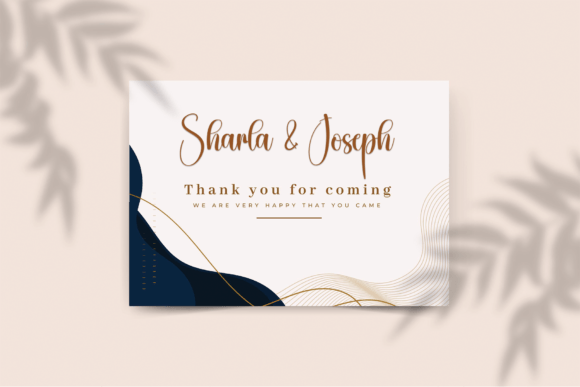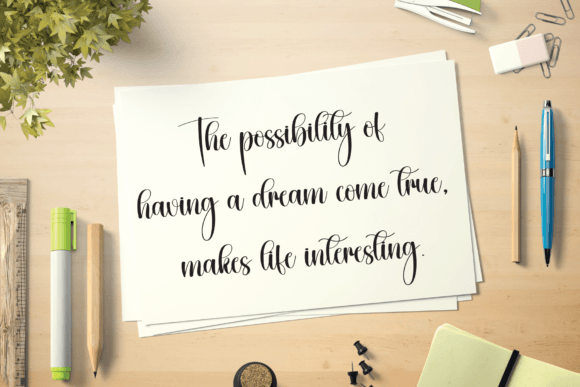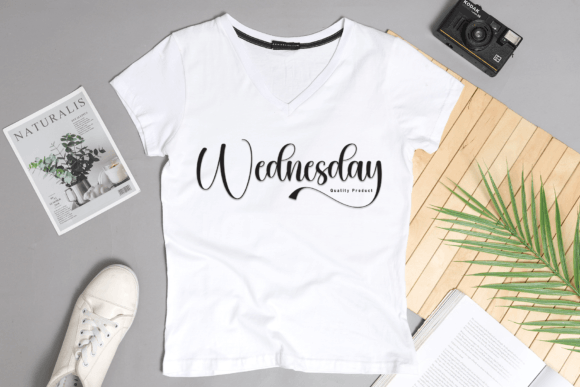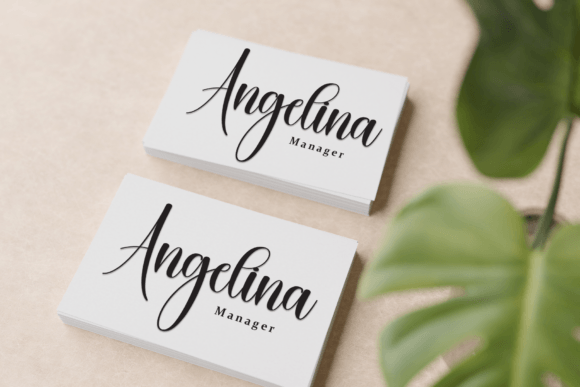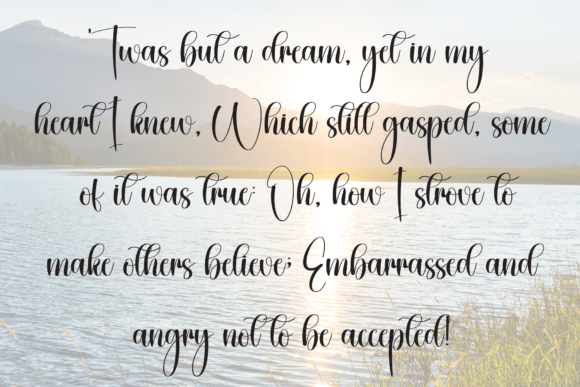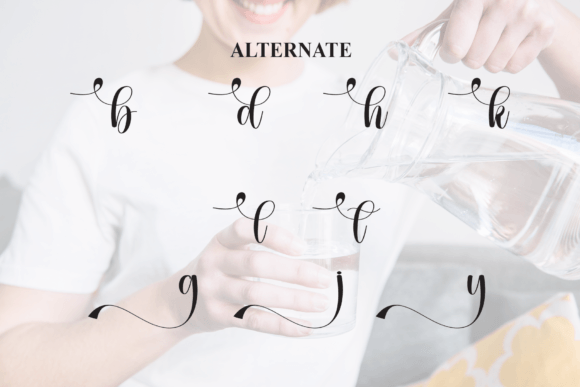
Introduction to Drinking Font
As a designer, there’s nothing quite like the thrill of a blank canvas waiting to be transformed into a masterpiece. You stare at your screen, a blank slate begging for creativity, and suddenly, the perfect font pops into your head. For many, that font is Drinking Font – a sweet and friendly handwritten font that’s as versatile as it is charming.
With its natural and unique style, Drinking Font is an invaluable design resource that can elevate any creative project. Whether you’re working on a blog post, a social media campaign, or a brochure, this high-quality font is sure to add a touch of warmth and personality. And the best part? You can download it for free, complete with a transparent background that makes it easy to use in any design scenario.
So why is Drinking Font so valuable to designers? For one, its free download makes it an accessible resource for creatives of all levels. Plus, its high-quality design ensures that your projects will look polished and professional. Whether you’re a seasoned pro or just starting out, Drinking Font is a must-have in your design arsenal.
Key Features of Drinking Font
- High-quality design resource for creative projects, available for free download
- Unique, modern font with a transparent background, ideal for use in digital designs
- Perfect for use in logos, branding, and other visual identity elements, thanks to its sleek and modern design
Honest Review: Drinking Font
I recently had the chance to work with the Drinking Font, a unique and quirky typeface designed specifically for creative projects. Overall, I was impressed with the quality and versatility of this design resource.
- The transparent background makes it easy to layer and composite the font with other design elements.
- The Drinking Font is limited in its range of weights and styles, which may not be suitable for complex design projects.
- The font may not be suitable for body text, as it can be quite ornate and may be difficult to read at small font sizes.
Overall, I would recommend the Drinking Font for designers looking for a unique and eye-catching typeface for their creative project. While it has some limitations, it is a high-quality design resource that is easy to use and download.
The Drinking Font is ideal for creative projects that require a sophisticated and elegant look. Use it for wedding invitations, restaurant menus, or any other project that demands a high-end design.